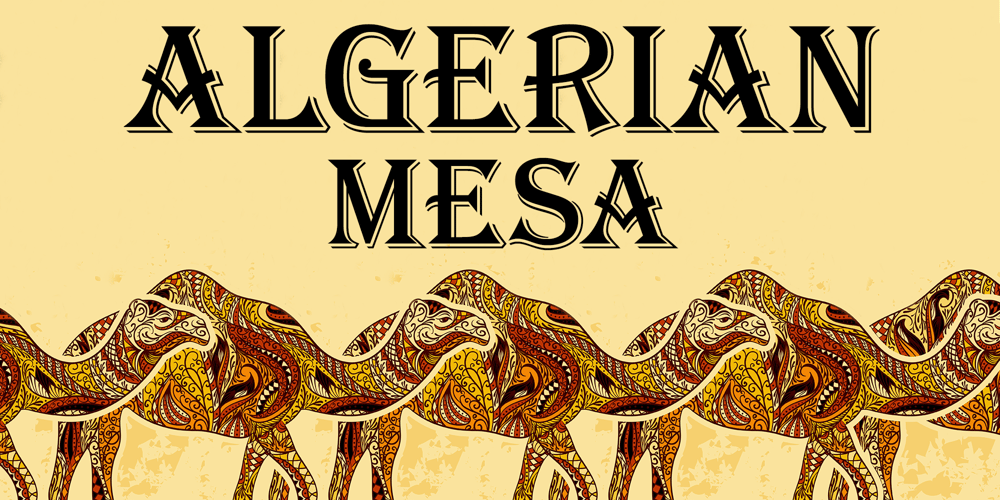
Algerian Mesa Font Family was designed by Michael Hagemann and published by FontMesa. Algerian Mesa contains 32 styles and family package options. Inspired by the old Stephenson Blake Caps only font Algerian from 1908, this version, named Algerian Mesa, has been freshened up with a new matching lowercase.The original Algerian, on page 142 of the 1908 Stephenson Blake specimen book, was a small caps to a more decorative lining caps and the plain black version, without the shadow line, was named Gloria.Also on page 142 of the 1908 Stephenson Blake specimen book is a shaded Latin font that gave me the idea for the Alt version of Algerian Mesa.The Alt version works well at smaller point sizes combined with the regular Algerian Mesa font on the same page.New for 2016 were Opentype features including original alternates, oldstyle numerals and case sensitive forms, also new is a fully usable Alt version.New for 2022 are the higher x-height, 90% small caps, 80% small caps and all new italic versions.Also new for 2022 are straight sided accent marks replacing the flared or curved accents.While Algerian Mesa includes some alternates our related Tavern font will still remain the version with more alternates and more weights.